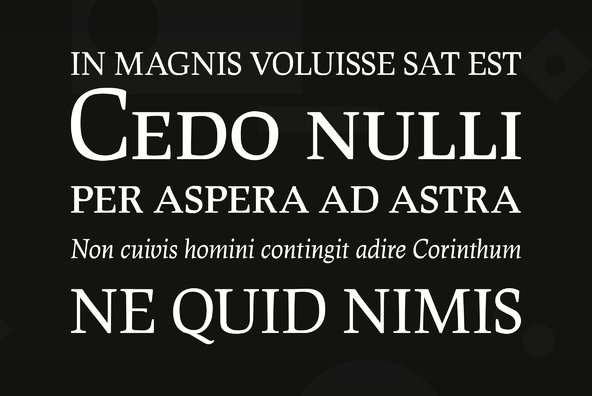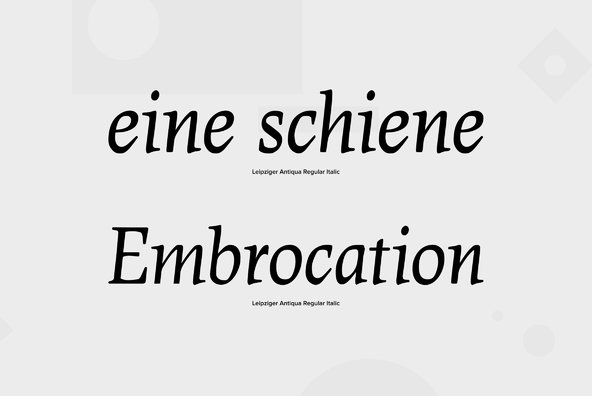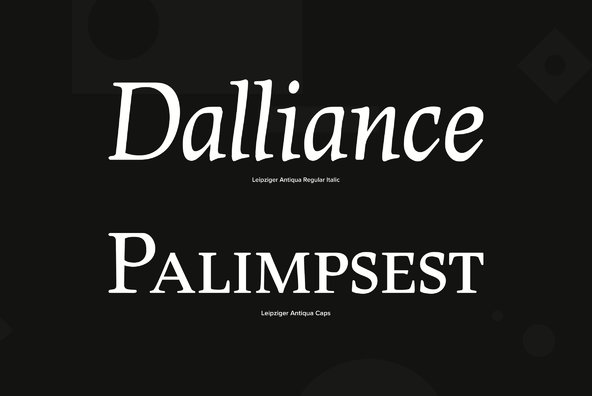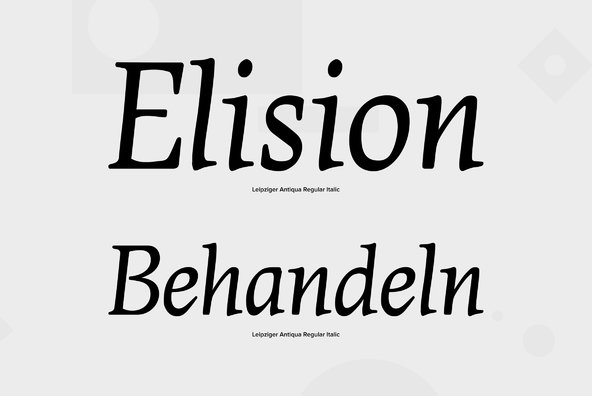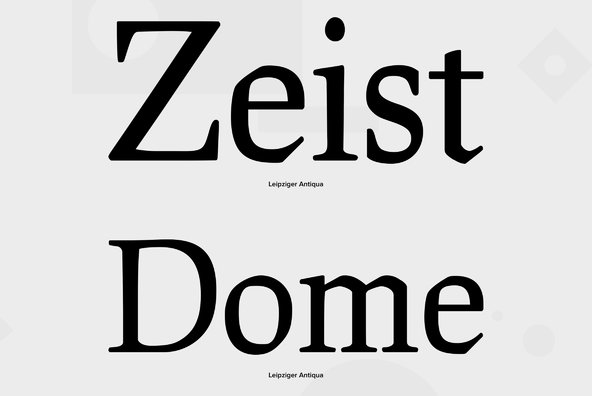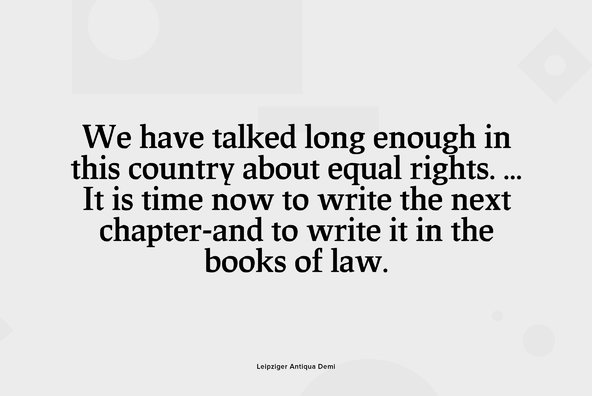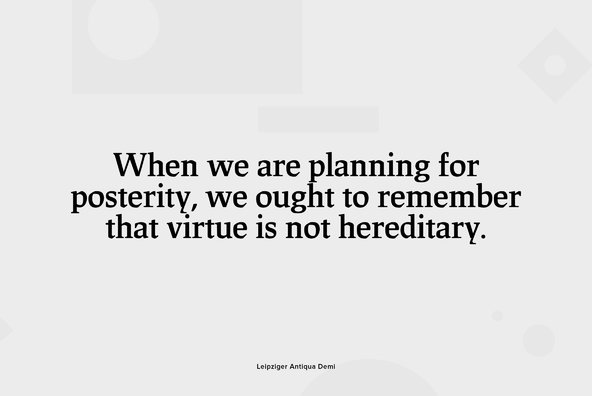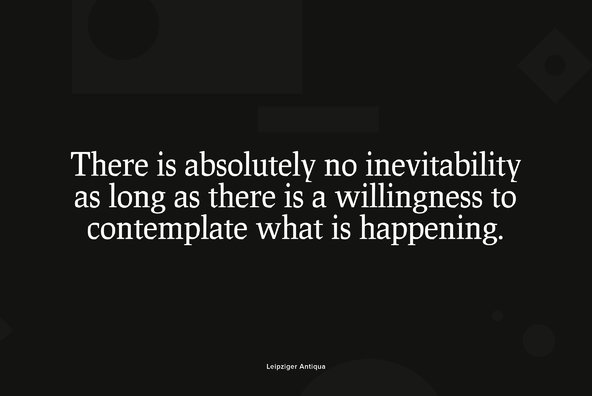
Leipziger Antiqua
The original typeface was designed by Albert Kapr between 1971 and 1973 for Typoart in Dresden. Kapr was the font designer and teacher as well as book author on type design of former East Germany. He also was an expert on this kind of type design, and thus, it is no surprise that he created Leipziger Antiqua, a design combining features of both Latin and broken scripts. The result is a stunning and unique gem from earlier times although it does not come along too distinguished or artsy.
The digital version of Leipziger Antiqua was developed by Ralph M. Unger in 2005. During the work, Unger fell so deeply in love with this typeface that he couldn't help but add an expert font with small caps etc.